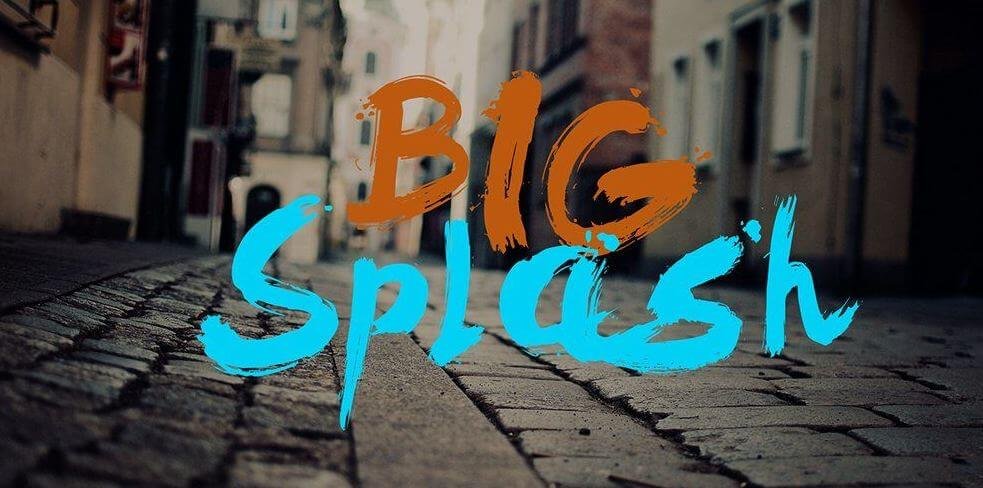
Big Splash Brush Font is a free handwritten and condensed brushed font. It is first-rate for growing proper hand-drawn designs because of its capabilities extremely good texture, man or woman and particular ink splatters.
It is a sans serif font that looks like adventure time loved ones founded at the normal bebas Neue loose font by using manner of Ryoichi tsunekawa. It has grown in repute and grow to be something identical to the “Helvetica of the free fonts”.
This font is similar to renaissance font multipurpose and flexible, make it handy to suit with some different typeface to create a few appropriate assignments reminiscent of marriage ceremony invitation, antique design, greeting card, poster, e-book cowl, example, and so on.
This extremely good font that looks like chicago font has available pleasant in an unmarried fashionable range with authentic kind skills. And this everyday kind has to include 427 glyphs alongside facet one thousand gadgets according to em.
Moreover, it has 389 characters and supports many global languages. On this approach, it’ll defiantly paintings properly in every problem.